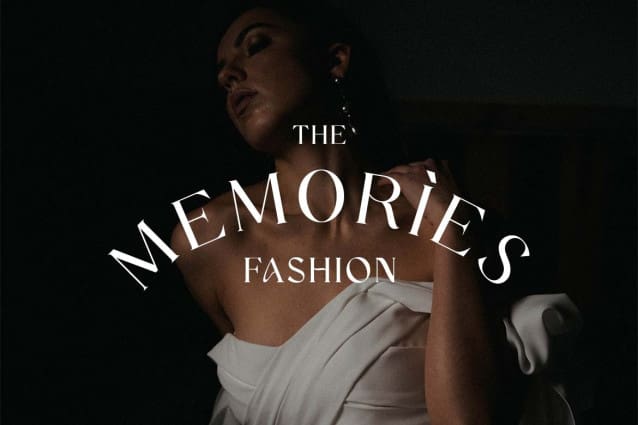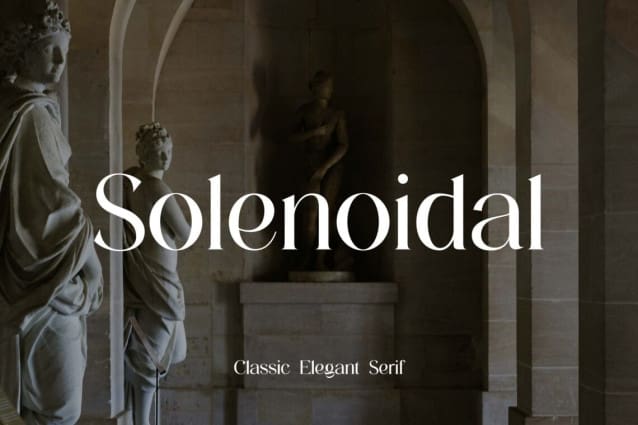
Solenoidal Font
Solenoidal Font – Classic Serif fonts give off a beautiful, classy, ​​elegant and stylish feel. This font is ideal for a variety of projects such as signatures, stationery, logos, weddings, typographic quotes, magazine or book covers, website headers, branding, etc. Additionally, branding related to fashion or editorial design shows both masculine and feminine qualities.